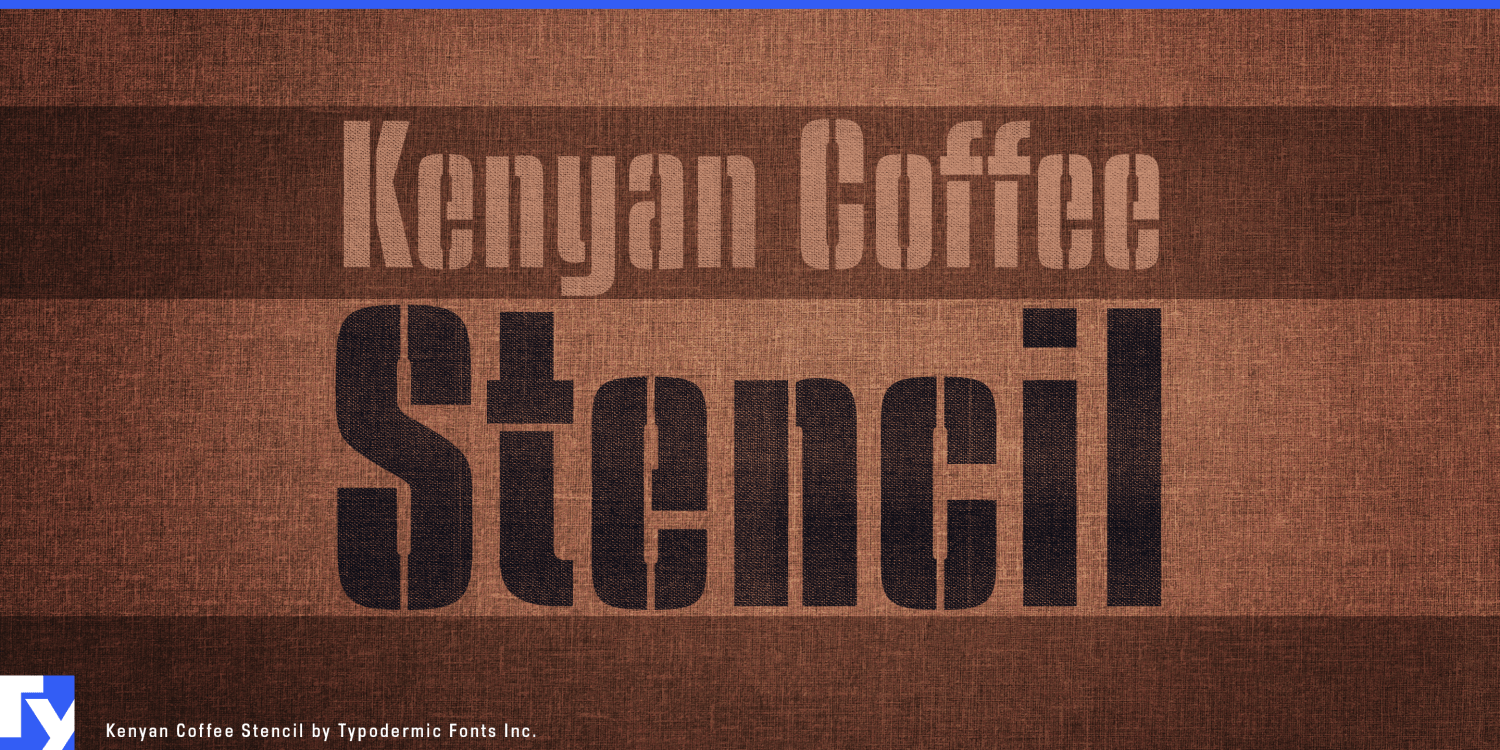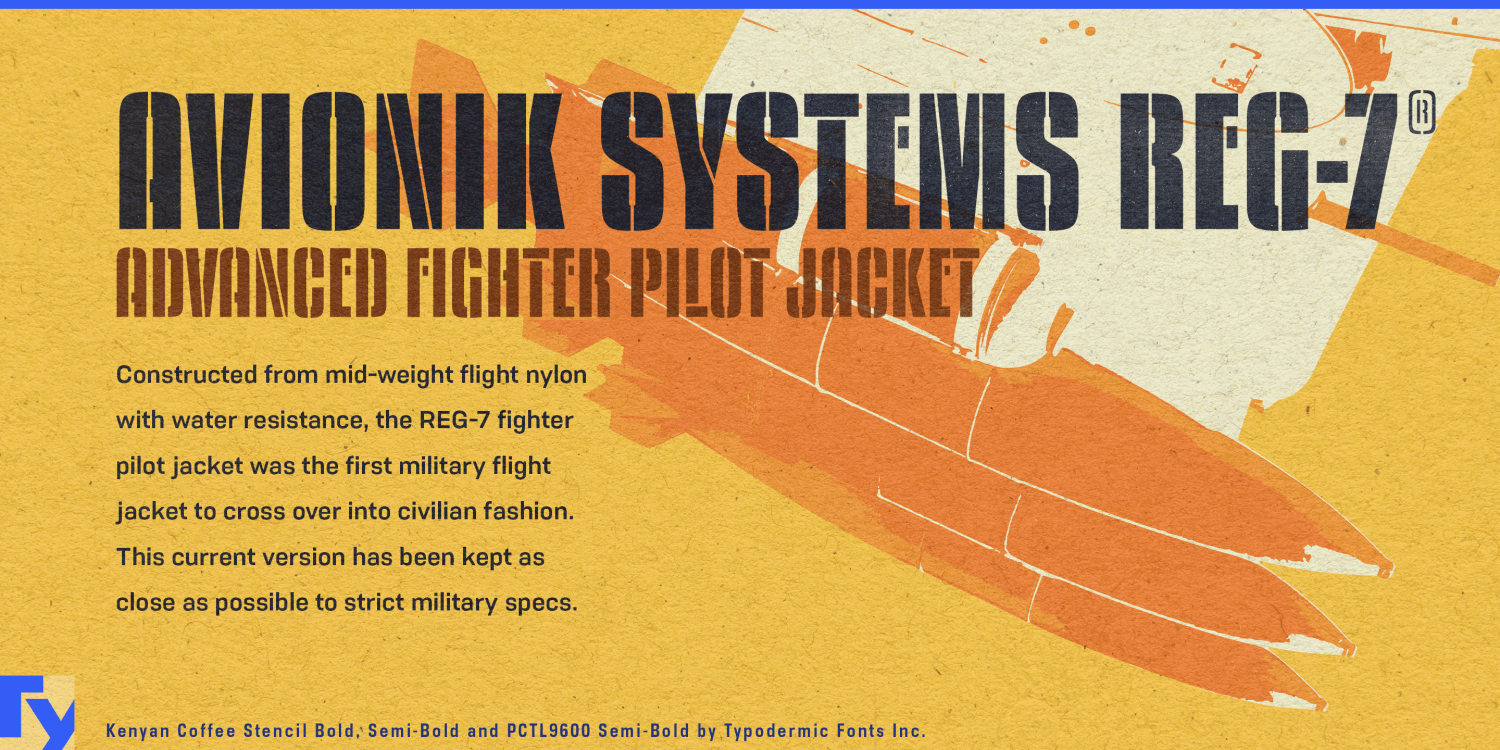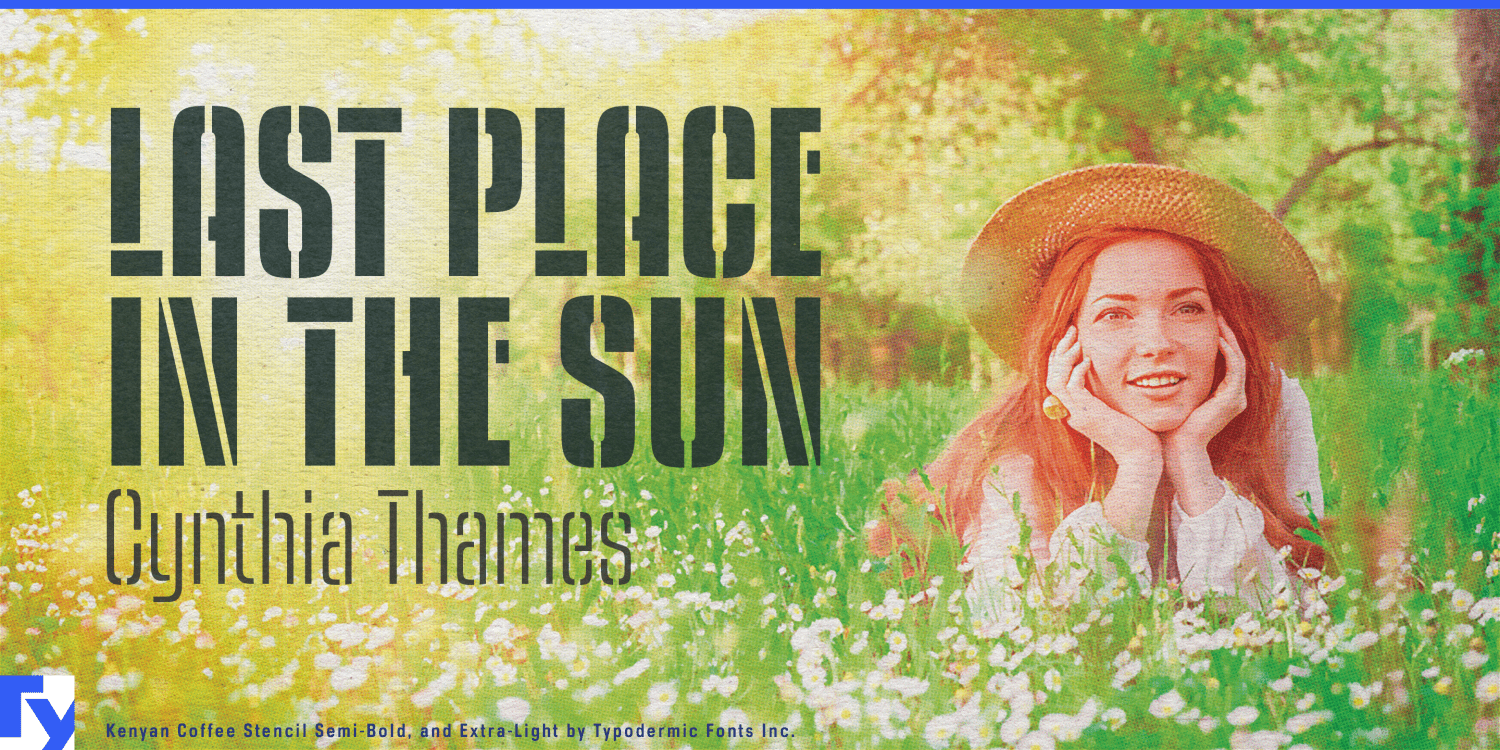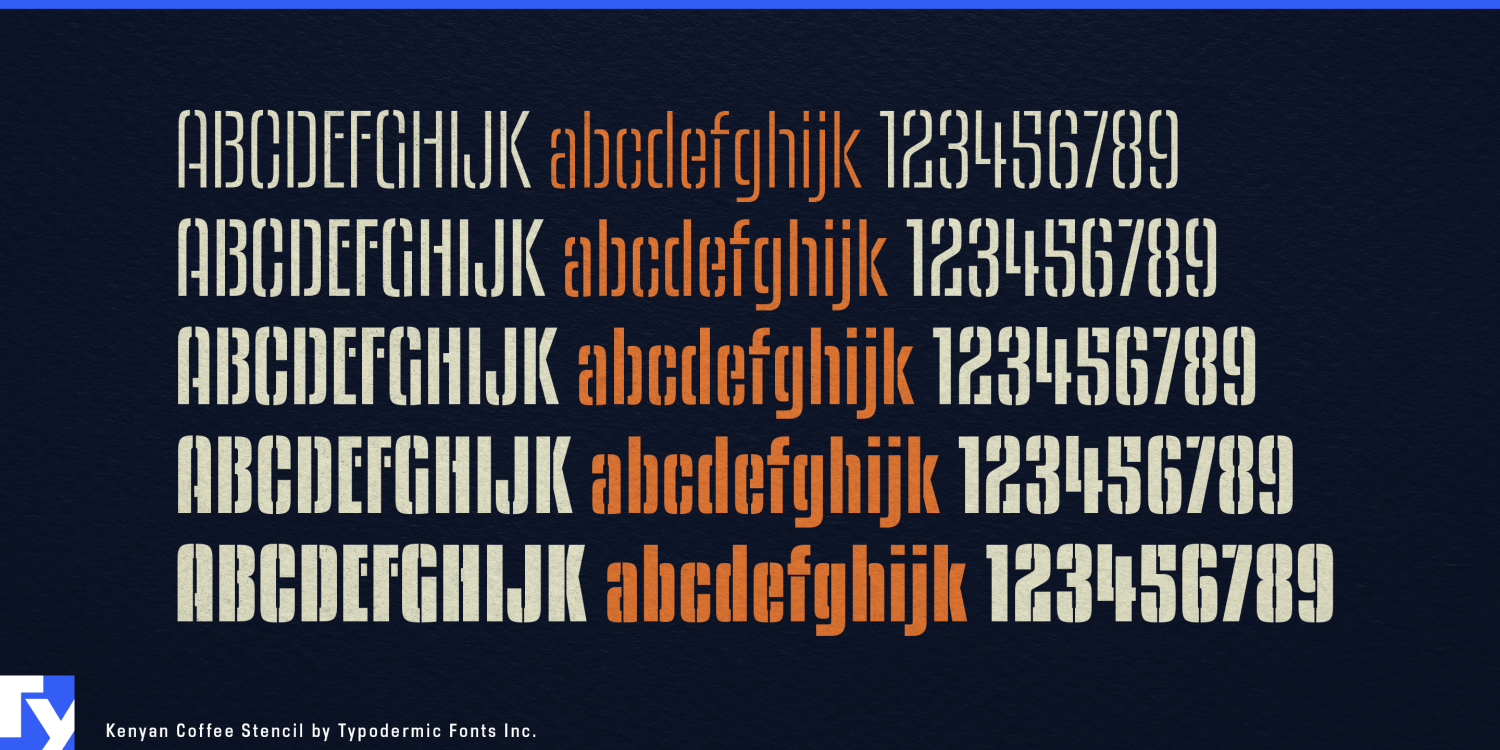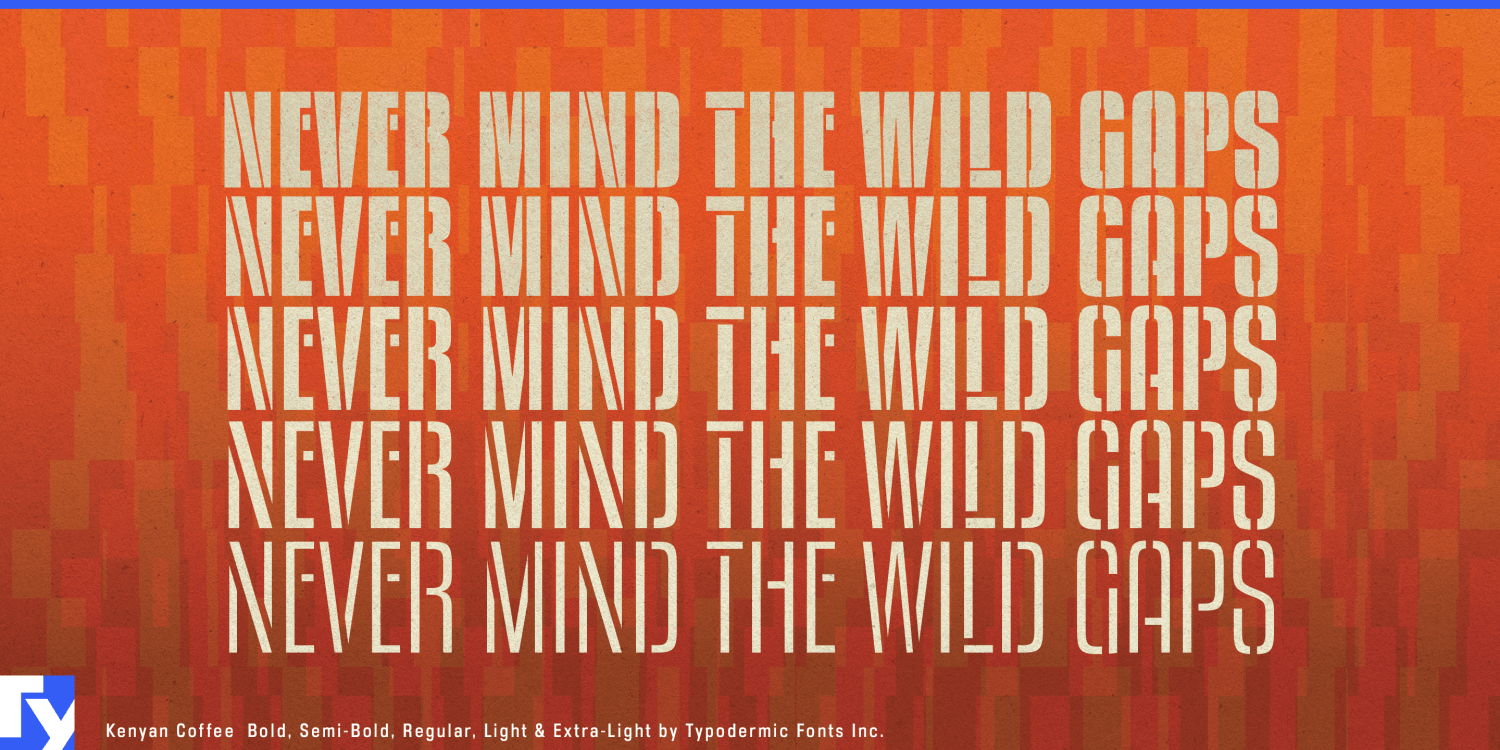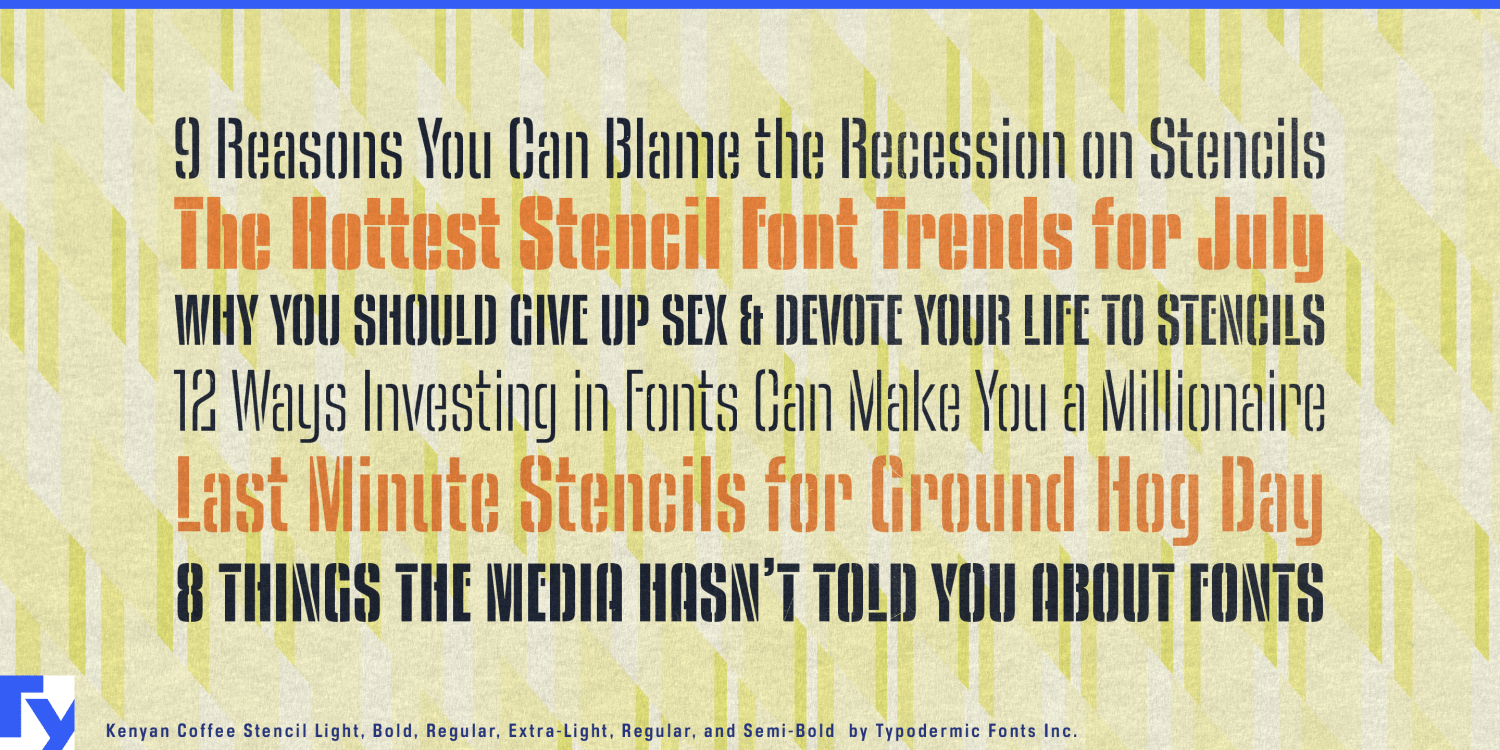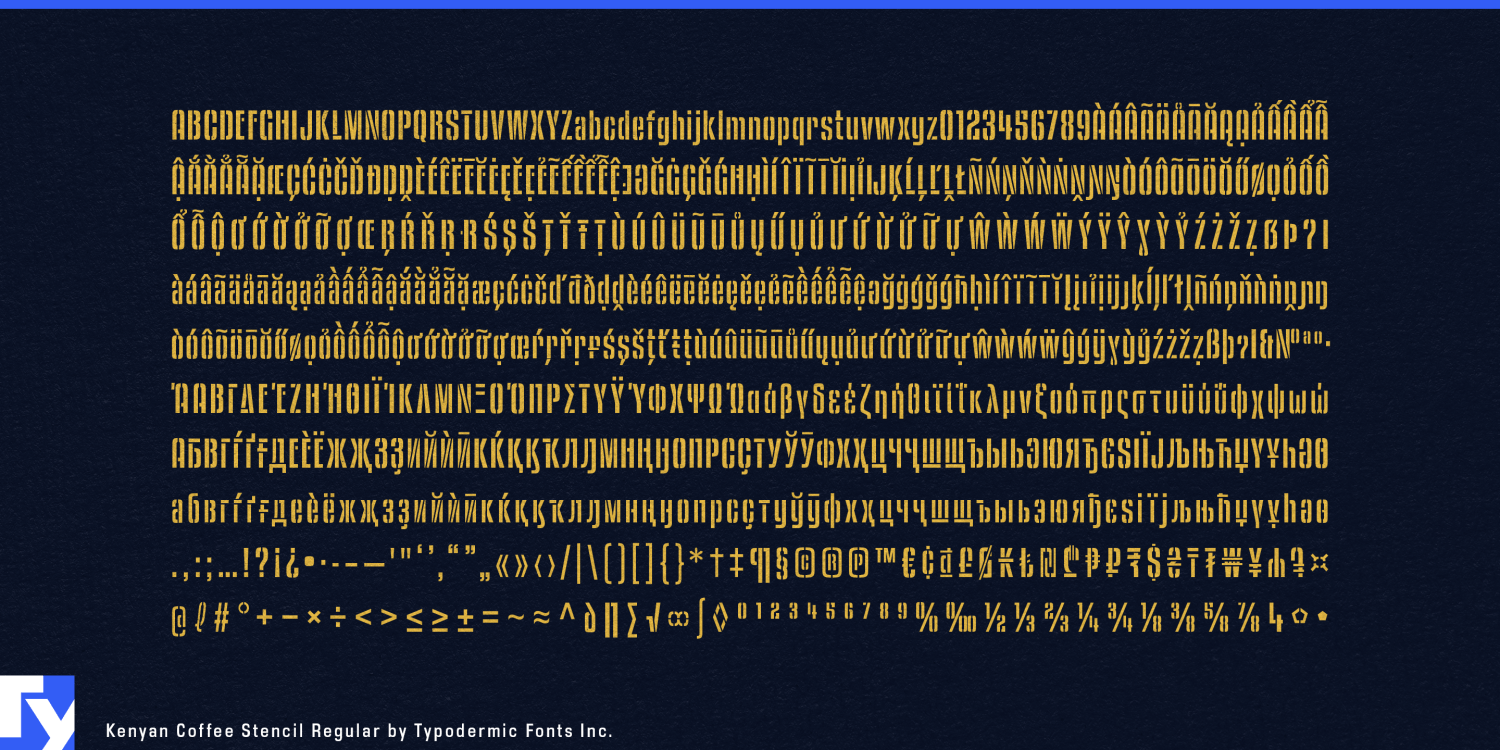
Kenyan Coffee Stencil
Stencil lettering usually tries to make its cuts unobtrusive. Kenyan Coffee Stencil keeps them visible. Its struts retain a deliberate presence across the weight range, while Kenyan Coffee’s shifting waistlines and unconventional crossbars give the letters a rhythm unlike the usual military or cargo stencil.
Specialty coffee is an especially natural setting. Green-coffee importers, specialty roasters, microlot releases, origin-series bags, wholesale cartons, cupping events, sample kits, and cold-brew products can use Kenyan Coffee Stencil for estate names, origins, lot numbers, processing methods, roast names, and large bag graphics. The connection to shipping sacks and commodity markings is immediate, but the unusual underlying forms keep the result from becoming stock cargo typography.
Outdoor coffee and field brewing extend that association into portable grinders, travel brewers, insulated mugs, camp-coffee kits, bikepacking brew systems, rugged carrying cases, and expedition-oriented coffee products. Model names, packaging, case graphics, retail displays, and event material can draw equally from coffee logistics and field equipment.
Technical outerwear and utility travel products provide another strong application. Flight jackets, field jackets, modular bags, bikepacking luggage, dry bags, camera cases, cargo organizers, and protective equipment cases often borrow from military and transport labeling without wanting to reproduce it literally. Kenyan Coffee Stencil supplies that utilitarian cue while its uneven waistlines and visible struts keep the result more eccentric.
The same quality suits overlanding cases, modular vehicle storage, roof-rack systems, recovery gear, portable power cases, drone transport cases, and outdoor equipment boxes. Model names, capacity numbers, kit identifiers, decals, packaging, and trade-show graphics can make the stencil cuts part of the identity rather than something to hide.
Gravel cycling, bikepacking rallies, trail events, and other endurance formats offer a useful crossover between outdoor equipment and coffee culture. Race names, checkpoint graphics, rider merchandise, sponsor activations, coffee-station signs, and event patches can use the same rugged vocabulary without defaulting to a conventional sports stencil.
Aviation remains a natural fit for flight-jacket collections, aviation museums, restoration events, pilot-equipment brands, aircraft-history exhibitions, and contemporary aviation merchandise.
Kenyan Coffee Stencil keeps the compact utility and rugged associations of stencil lettering while refusing to look like the standard army-crate solution. The breaks stay visible, the rhythm stays slightly peculiar, and that difference is the point.